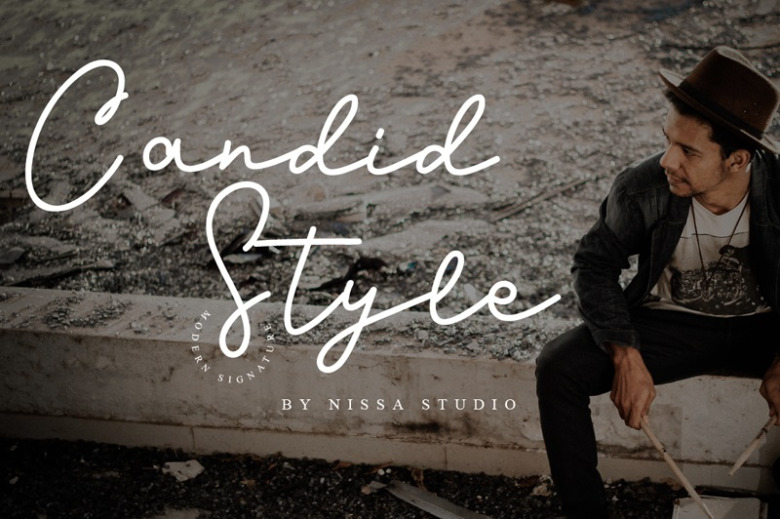
Candid Style Font
Candid Style is a high quality Handwritten font that is designed by NanaNissa and is available for free download and personal use. The free version provides all uppercase and lowercase letters and a few special characters too.
Candid Style Handwritten Font